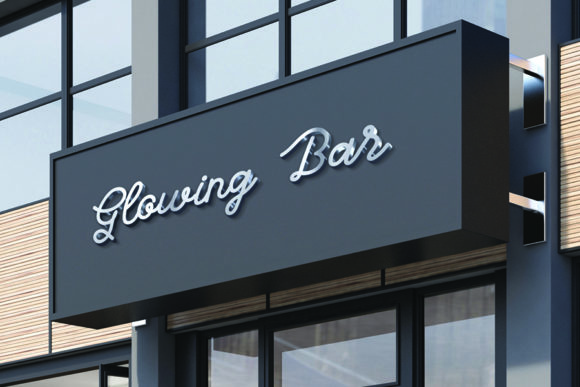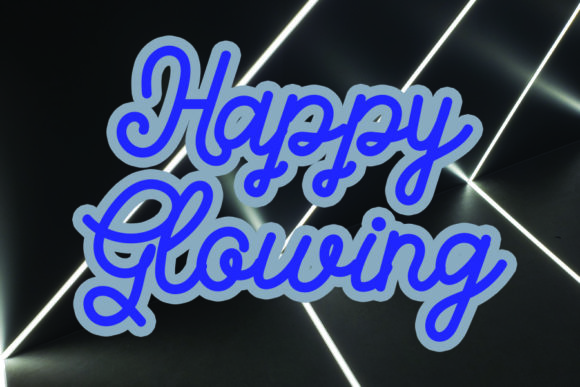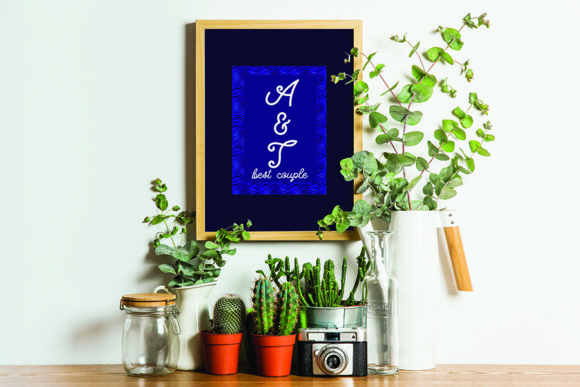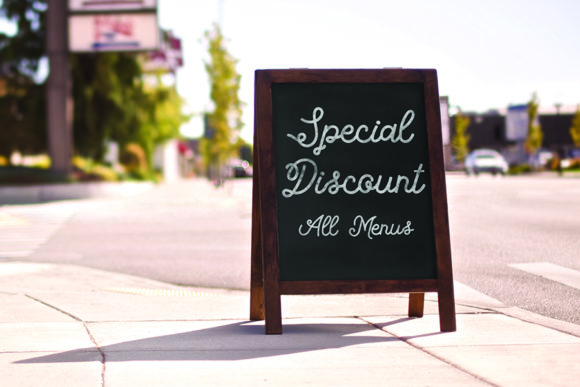
Introducing “Neon Light,” an exquisite handwritten font masterfully crafted to become a cherished favorite. It effortlessly combines the elegance of calligraphy with a contemporary and fresh twist. Prepare to be captivated by its refined beauty and watch as it elevates your projects to the highest levels of sophistication and creativity.
With “Neon Light,” you have a font that seamlessly balances timeless class with a modern edge. Its handwritten style brings an air of authenticity and refinement to your designs, creating a visual experience that is both elegant and captivating. Whether you’re working on invitations, branding materials, quotes, or any other design, this font adds an aura of sophistication that leaves a lasting impression.
“Neon Light” beautifully captures the essence of both traditional and modern design, making it a versatile asset for your creative endeavors. Its ability to effortlessly blend classic calligraphic influences with contemporary freshness sets it apart.
Unleash your creativity and observe how “Neon Light” enhances your designs with its exquisite touch. Whether you’re designing elegant logos, crafting captivating stationery, or producing eye-catching social media graphics, this font will infuse your work with a sense of beauty and authenticity that stands out.
So, embrace the allure of “Neon Light” and let it become a cornerstone of your creative toolbox. Allow its masterful design to inspire your designs, elevating them to the highest levels of elegance and refinement. Whether you’re an experienced designer or a passionate enthusiast, “Neon Light” empowers you to create visuals that exude sophistication and make a statement. Let “Neon Light” be the key to unlocking an elevated design aesthetic, and watch as it propels your projects to new heights of excellence and distinction!